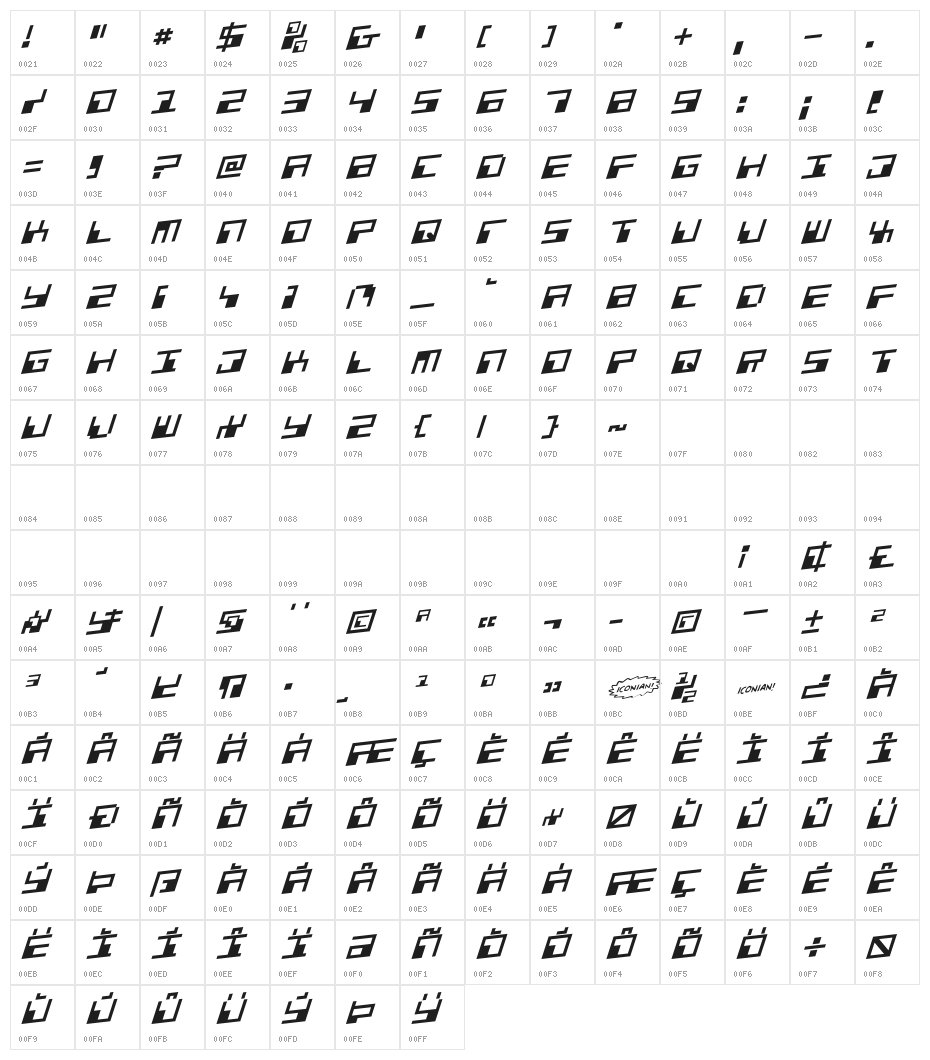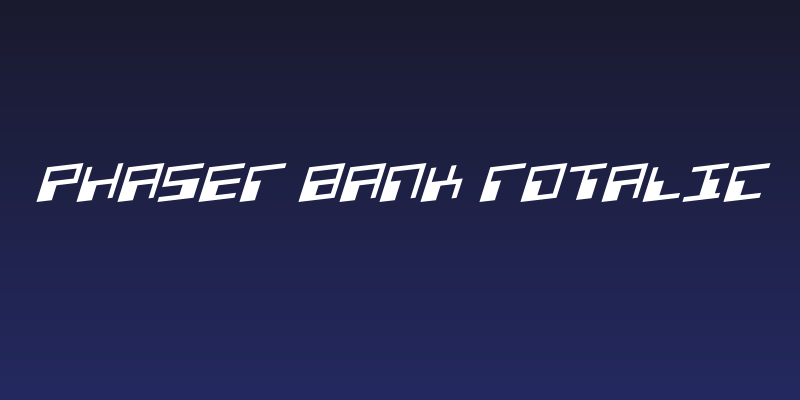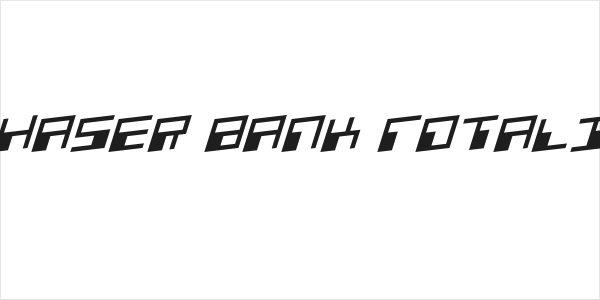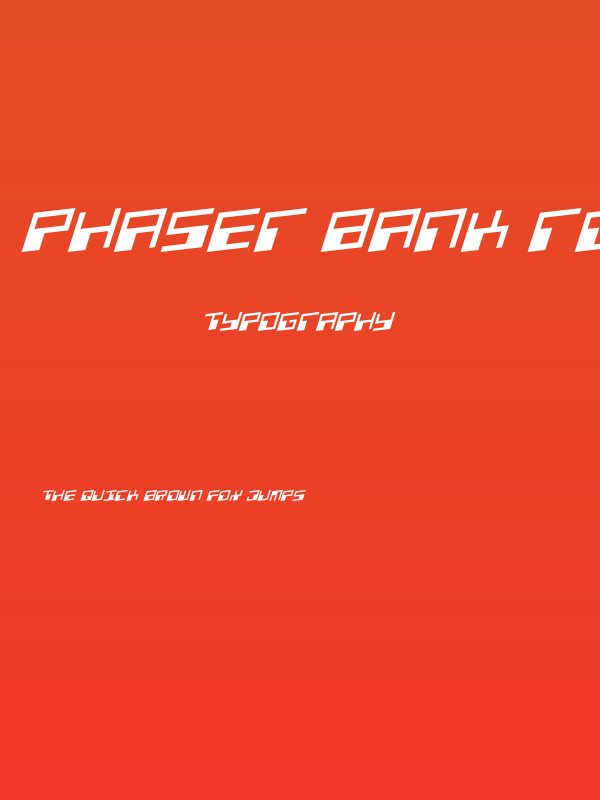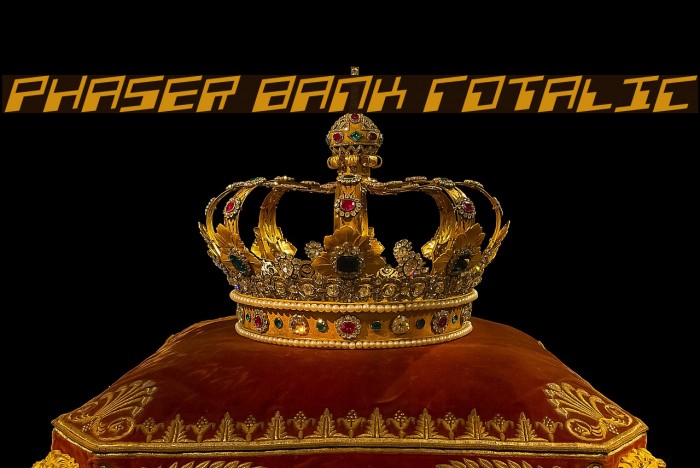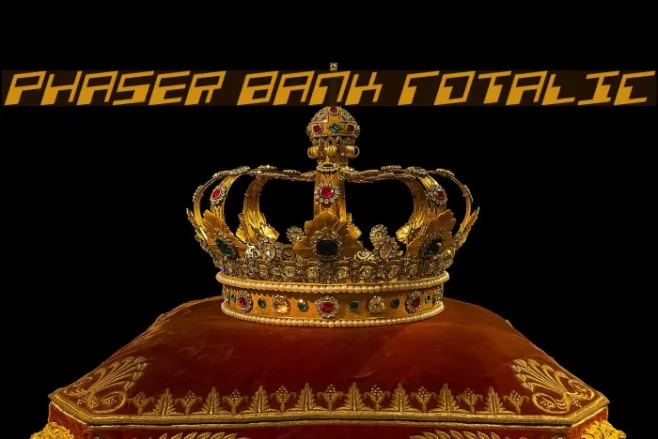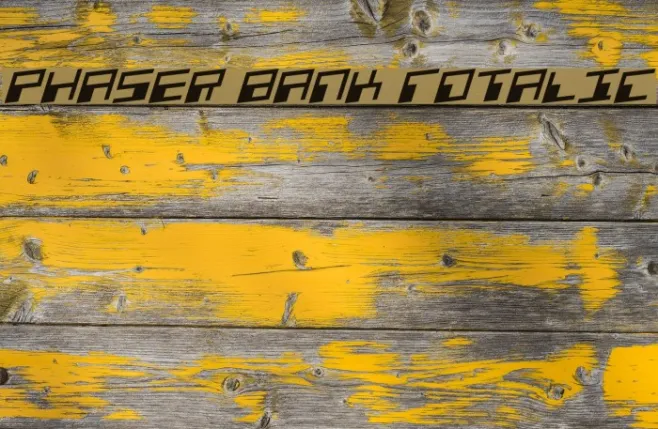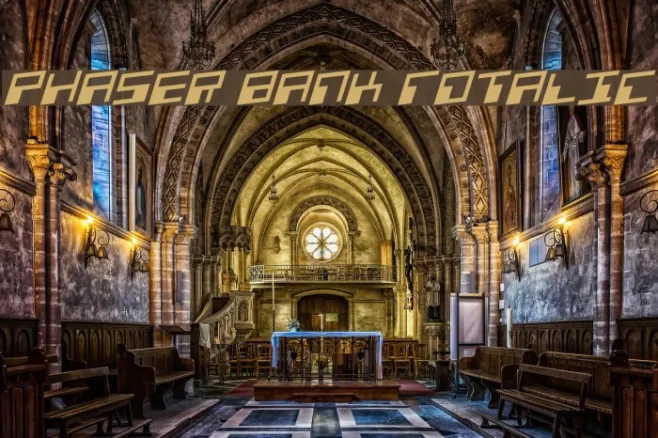
Phaser Bank Rotalic Font
Phaser Bank Rotalic Description
This font features a futuristic and angular design, characterized by sharp edges and a dynamic slant that gives it a sense of motion. The letters are bold and geometric, with a consistent forward tilt that adds a sense of urgency and speed. The uppercase and lowercase letters maintain a uniform style, while the numbers and special characters complement the overall aesthetic. This font's unique style makes it stand out, ideal for projects that require a modern and edgy look.
| Overall Style | Futuristic |
| Proposed Projects | Ideal for sci-fi themed designs, video game titles, tech branding, and dynamic posters. |